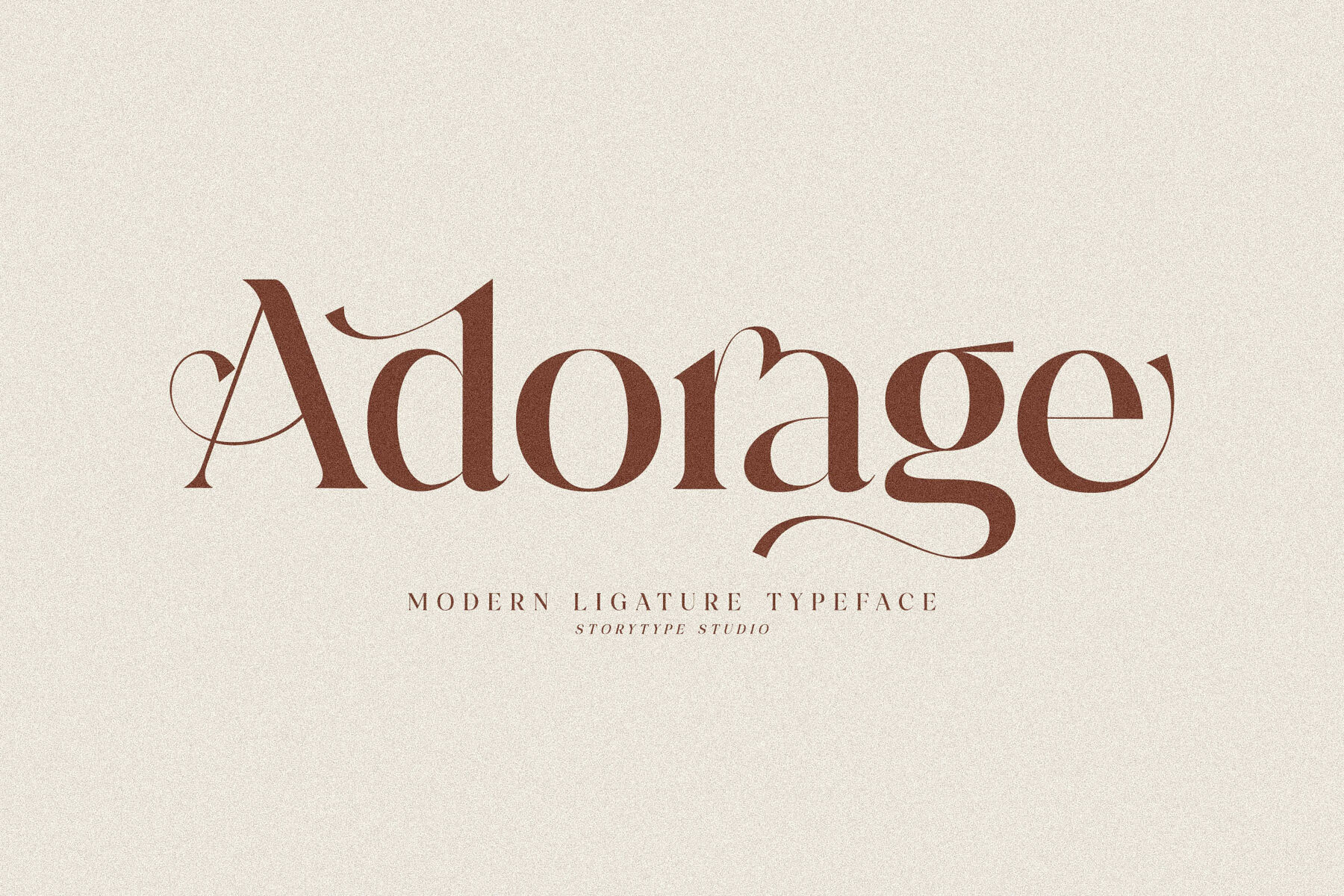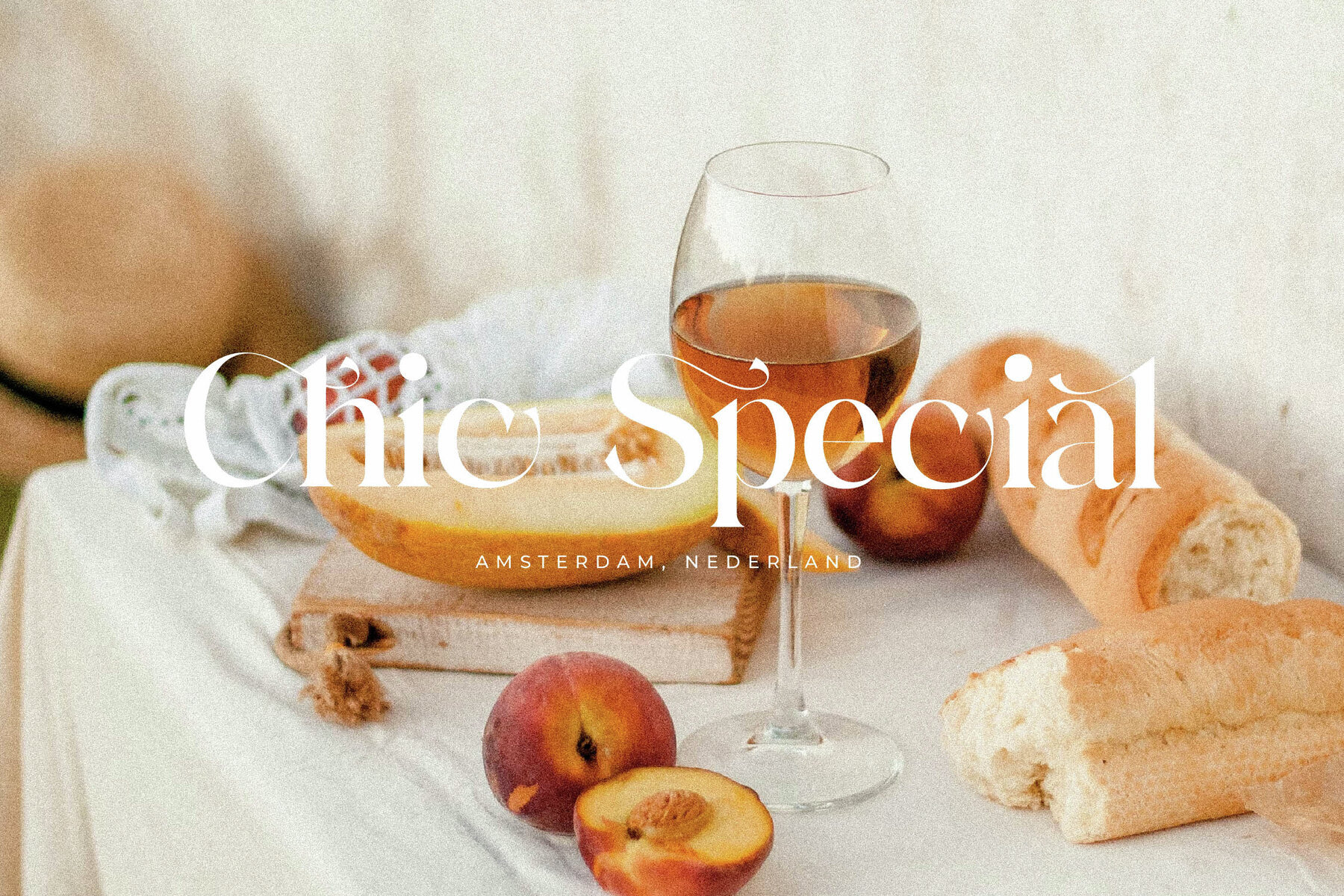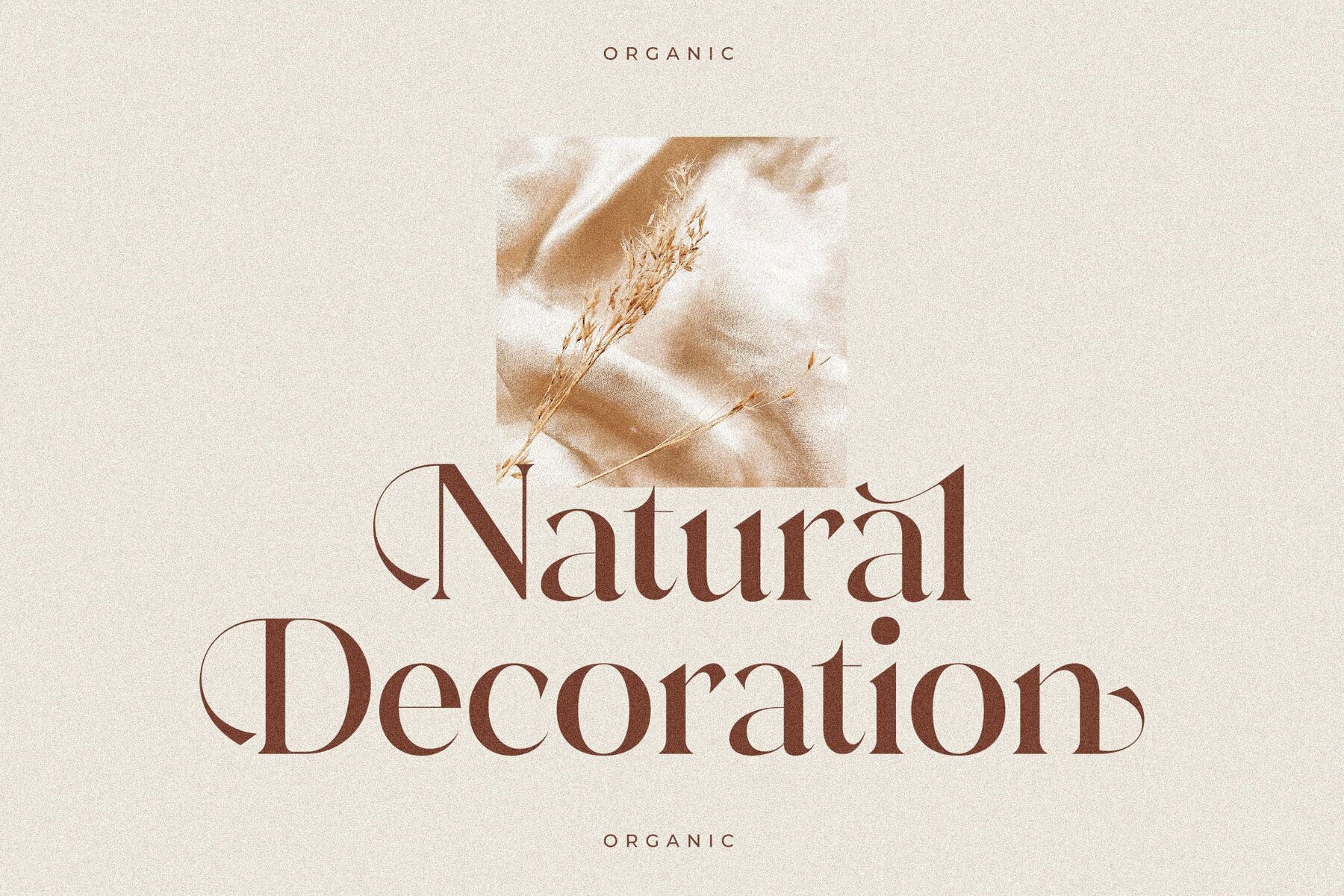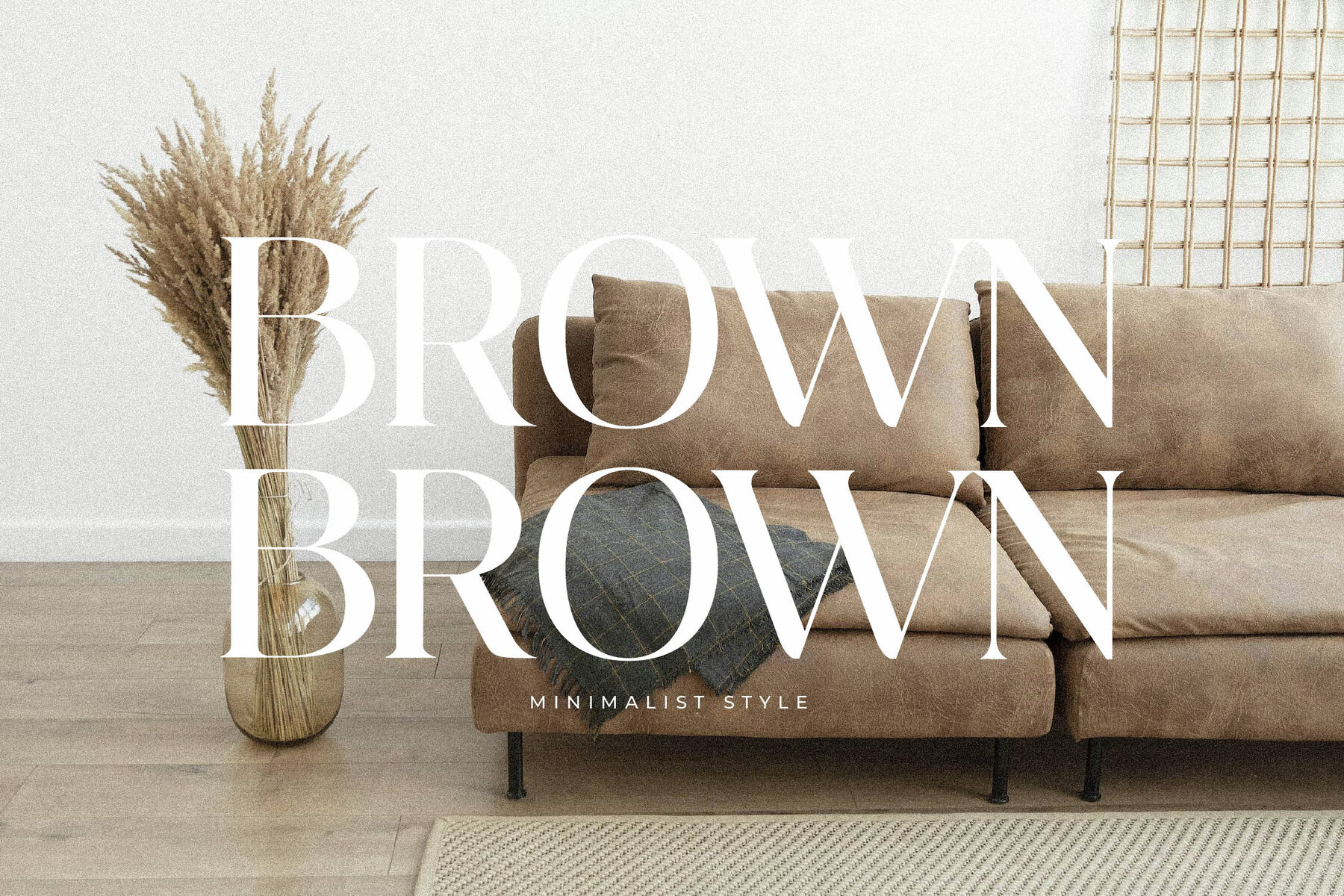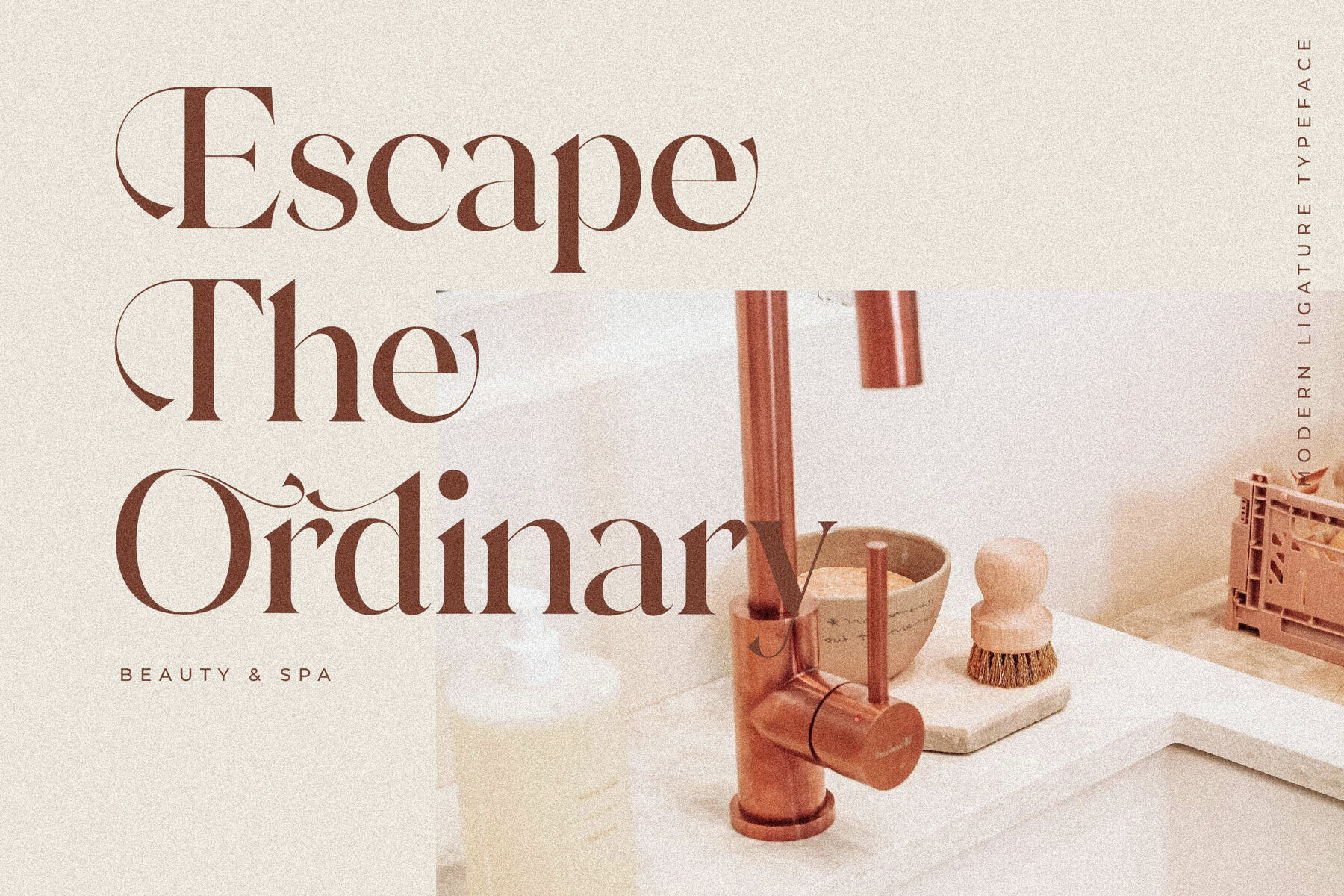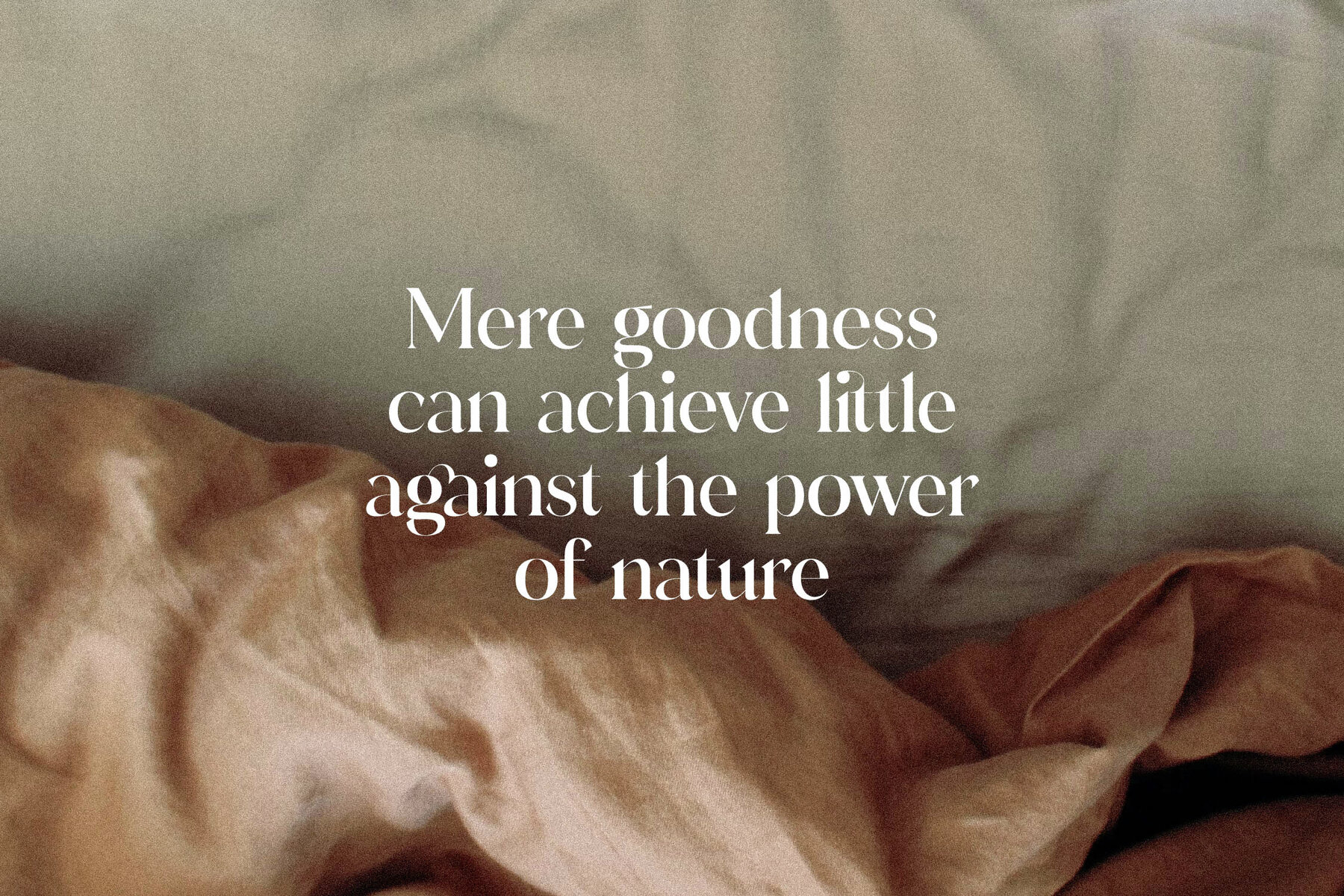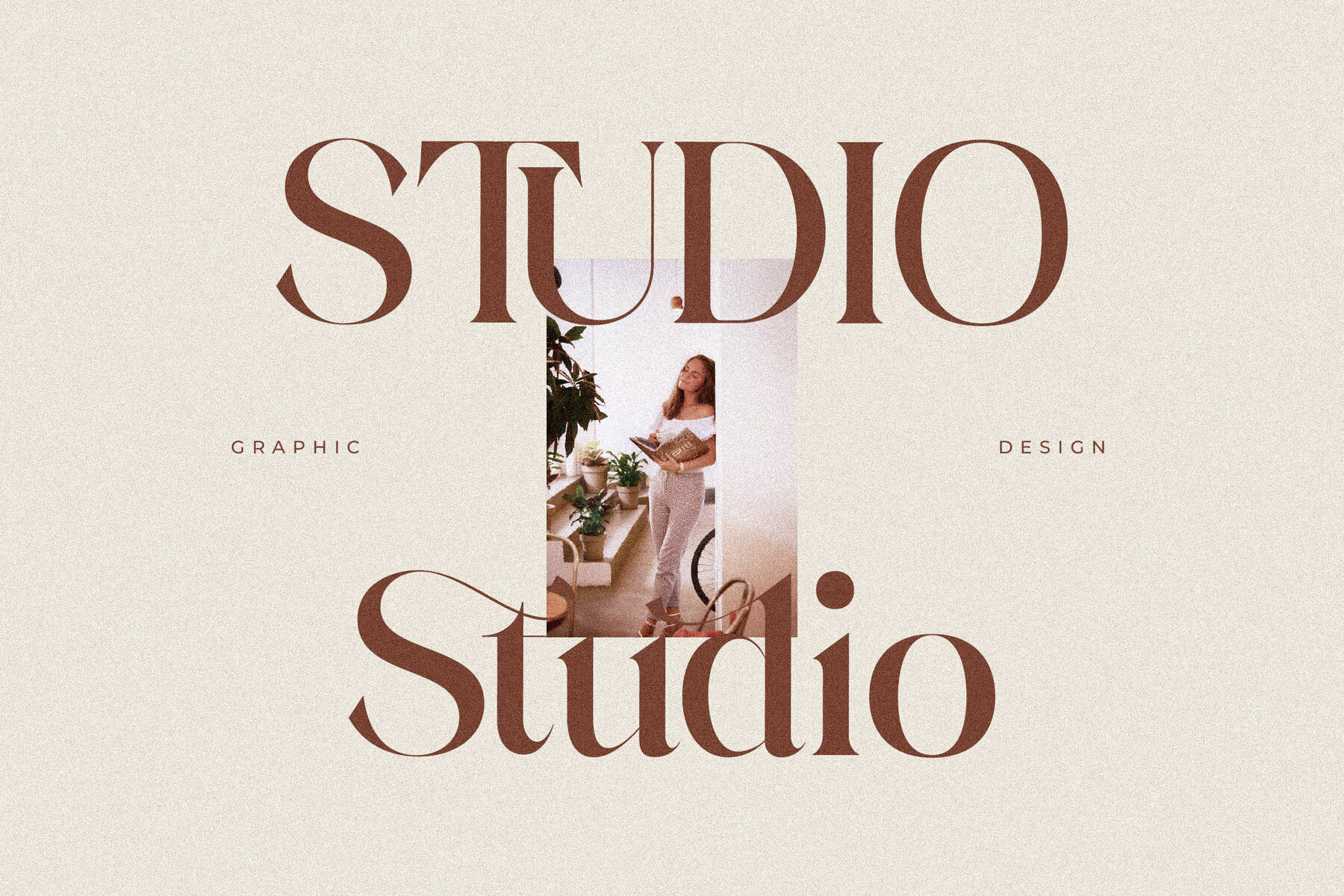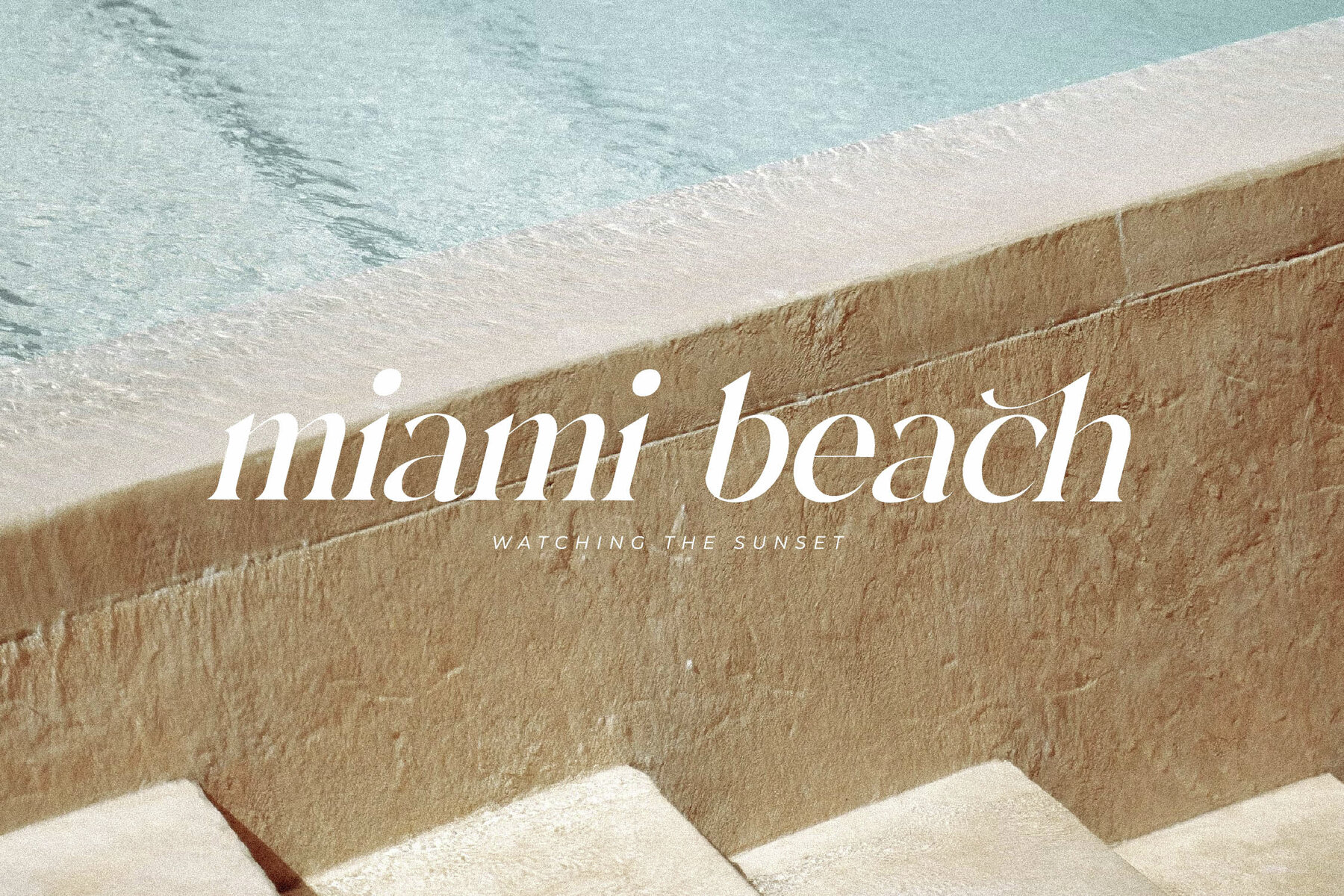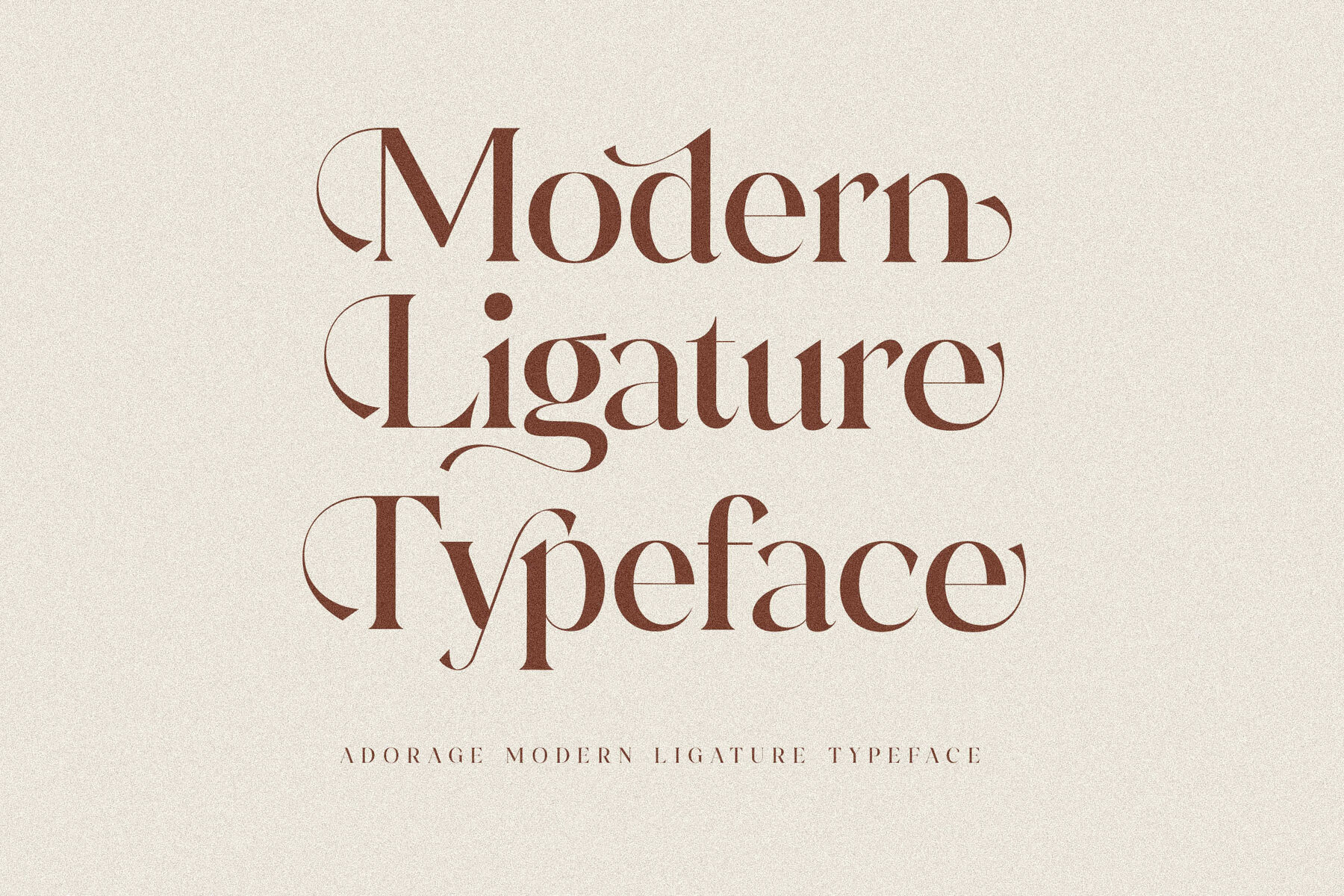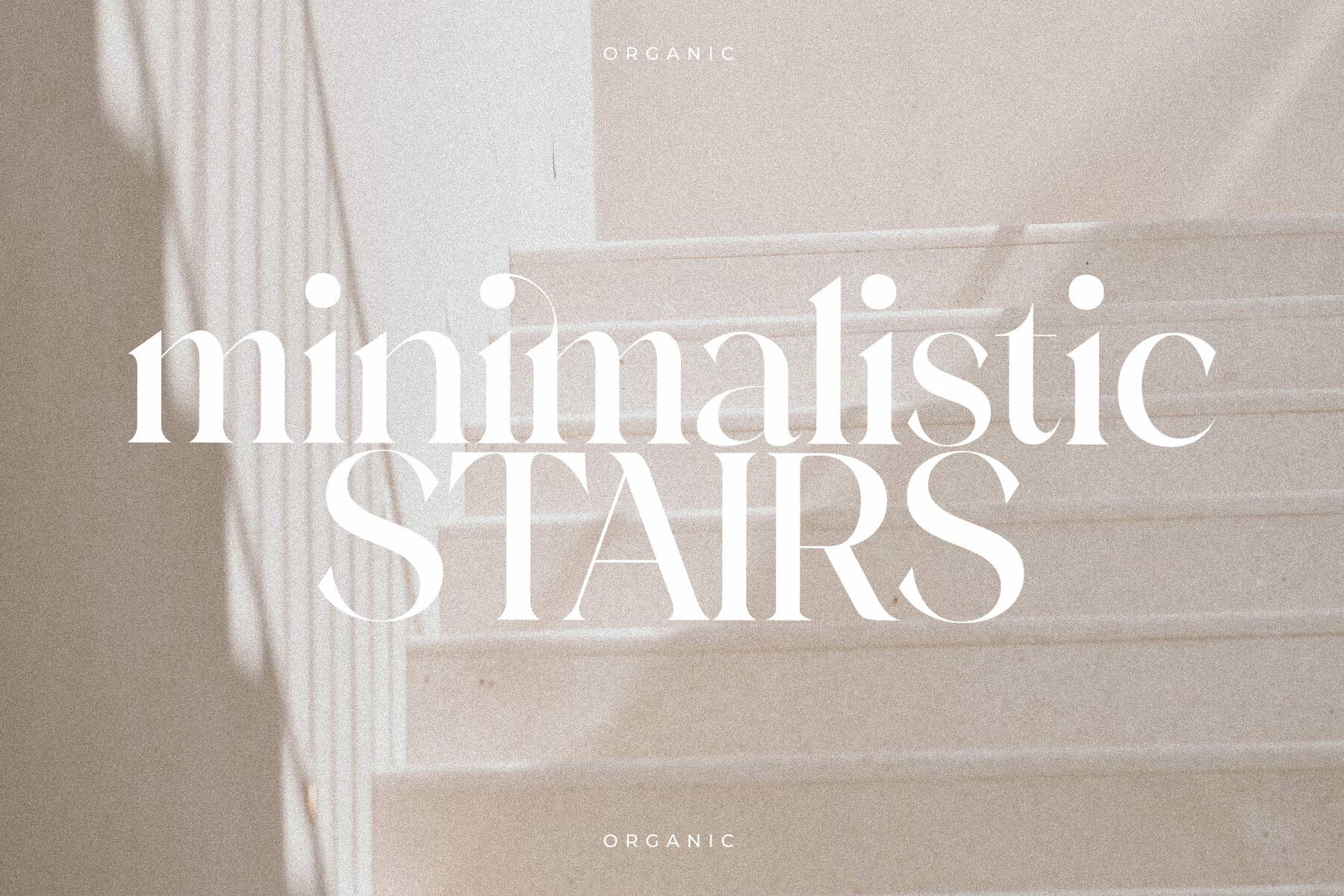
Adorage Font
Introducing Adorage, a distinctive serif typeface that beautifully marries modern and classic design elements. Perfect for adding a touch of luxury and sophistication, Adorage is ideal for crafting elegant logos, book or movie titles, and fashion brand identities. Its unique style also makes it suitable for magazines, clothing brands, and personal quotes. Versatile and stylish, Adorage by Storytype Studio is your go-to typeface for all your design needs.Adorage Typeface: Modern Elegance
Features of Adorage